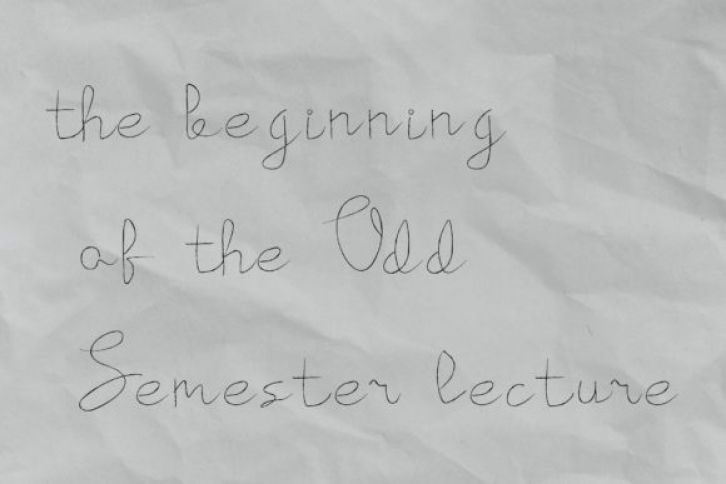
The Beginning of the Odd Semester is a simple and thin lettered handwritten font. It has a cute, lovely touch and is ideal for writing letters or cards that require a personalized touch.